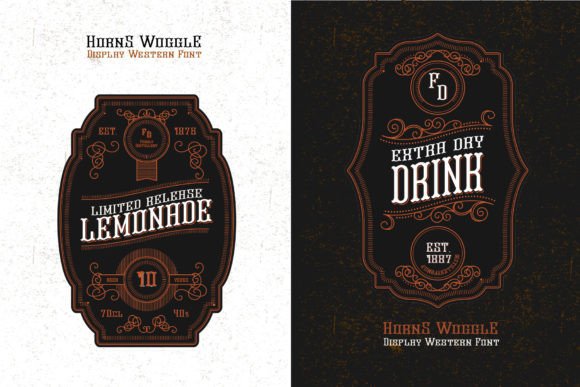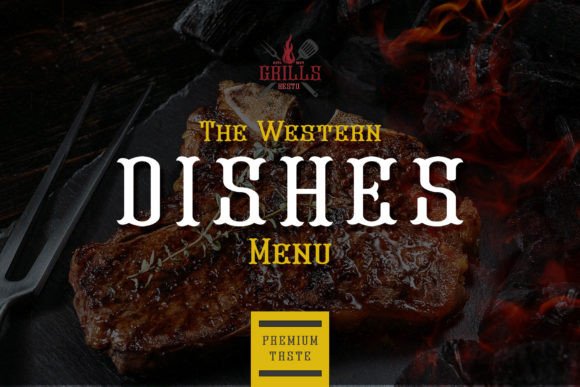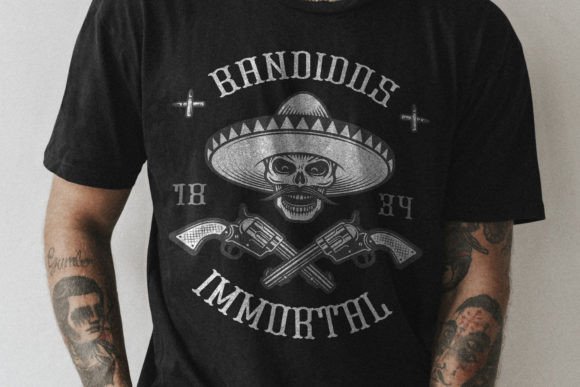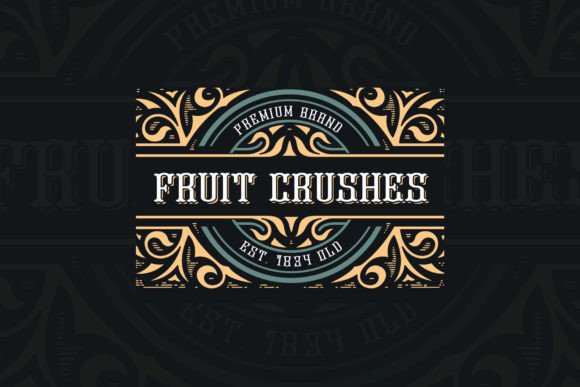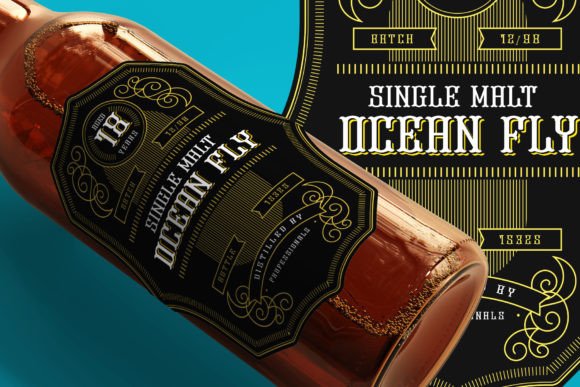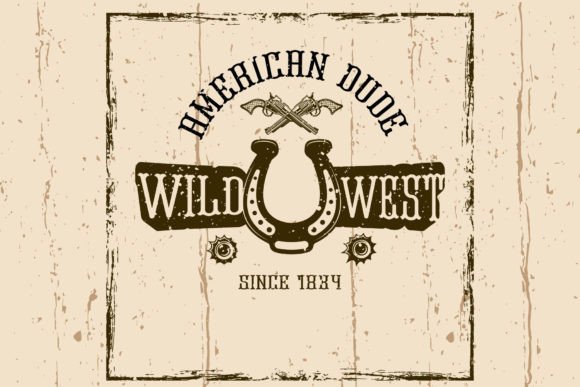
Introduction to Horns Woggle Font
Horns Woggle is a cool, western-style display font.
Key Features of Horns Woggle Font
Why Choose Horns Woggle Font?